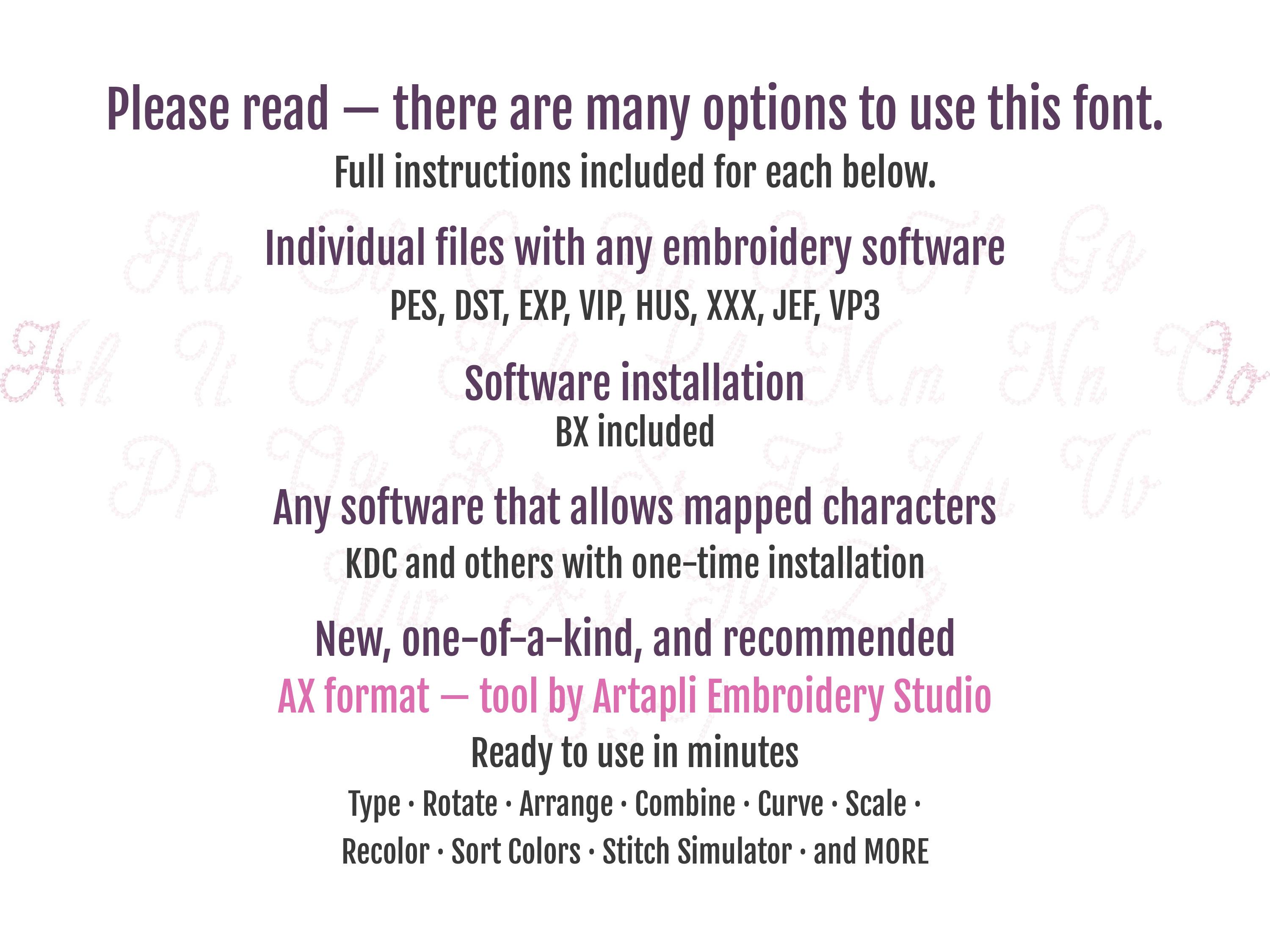
Quick light stitch Chain Links FONT machine embroidery designs in assorted mini sizes alphabet letters playful kids name monogram, BX included
Entire alphabet uppercase and lowercase letters Aa-Zz, and punctuation.